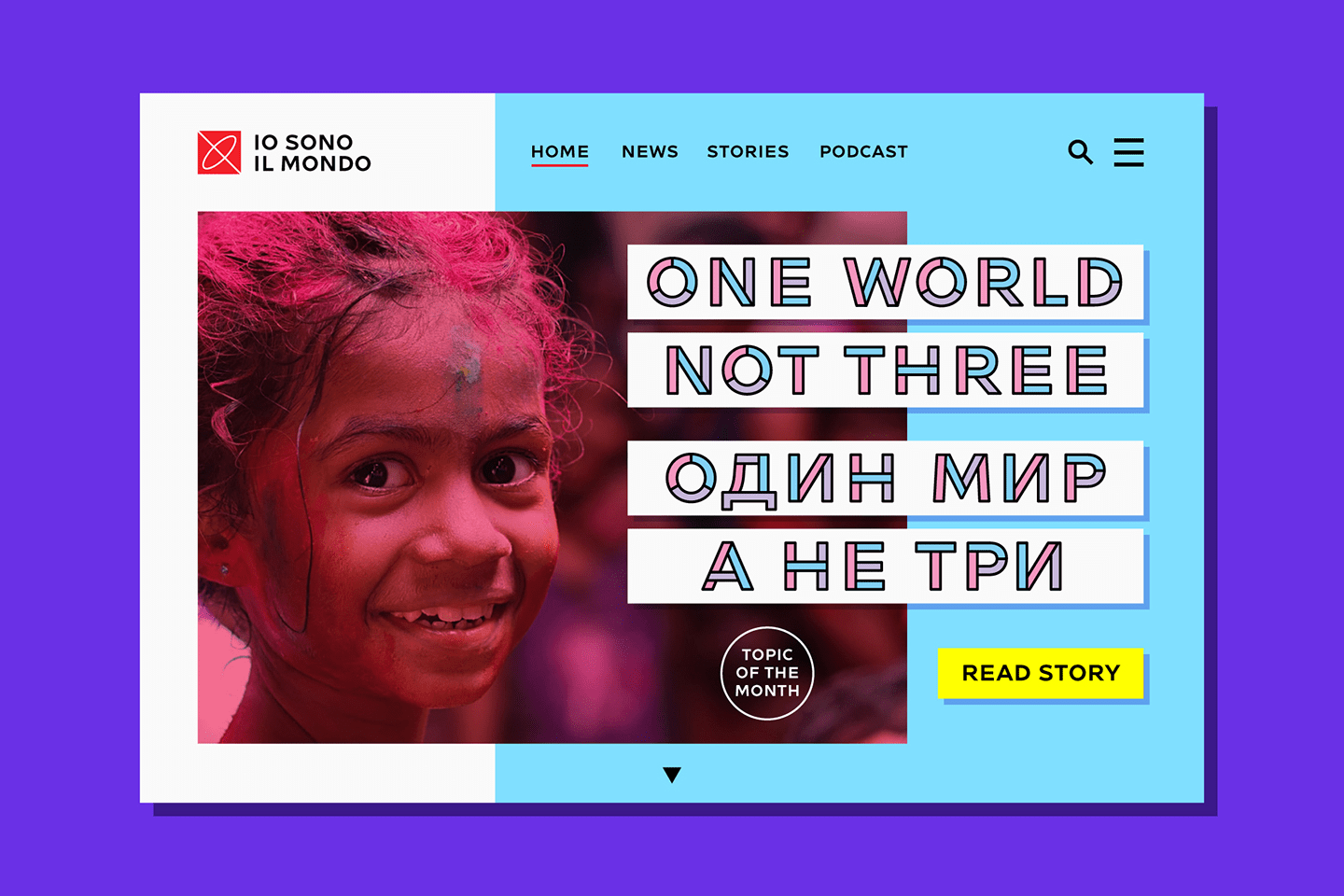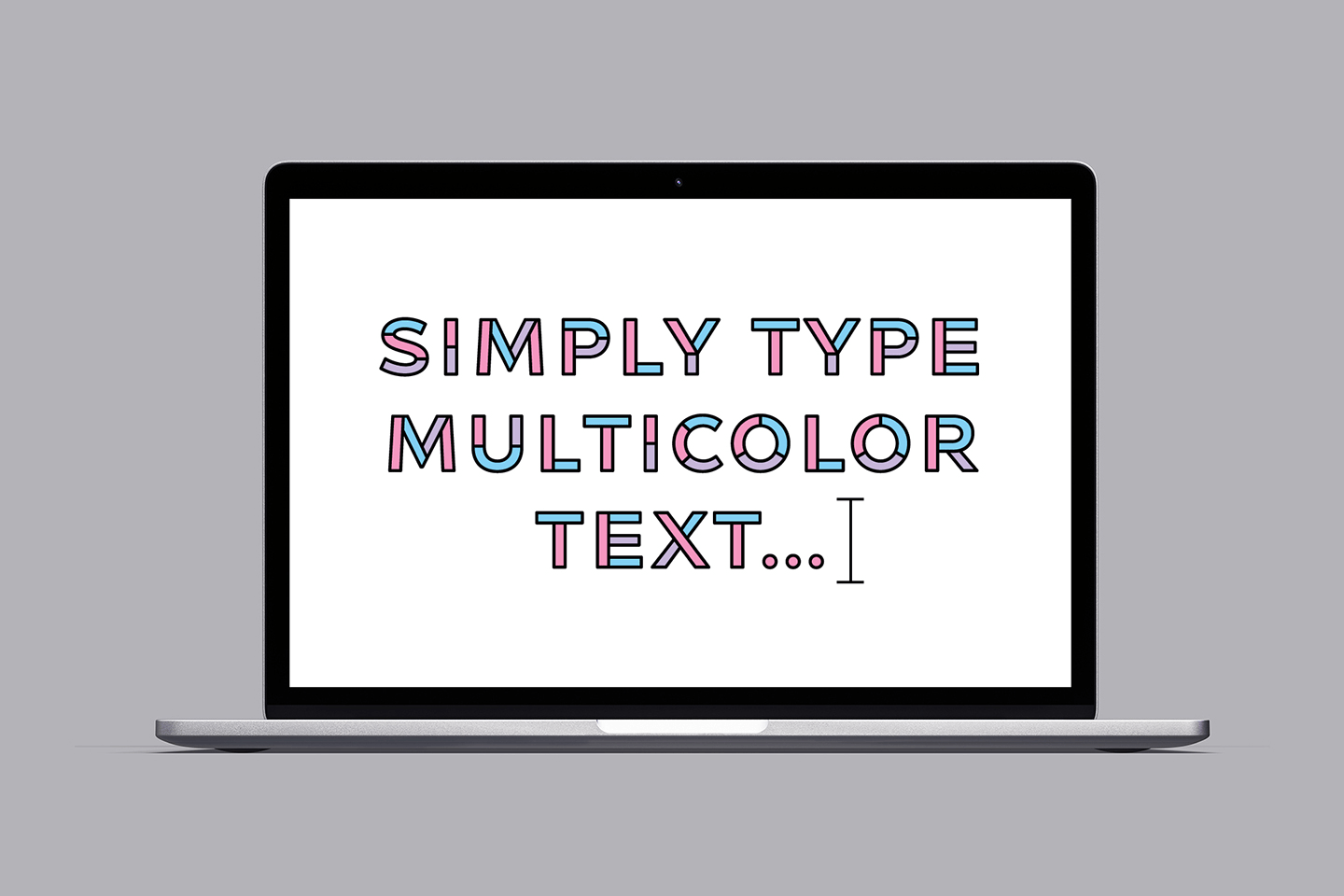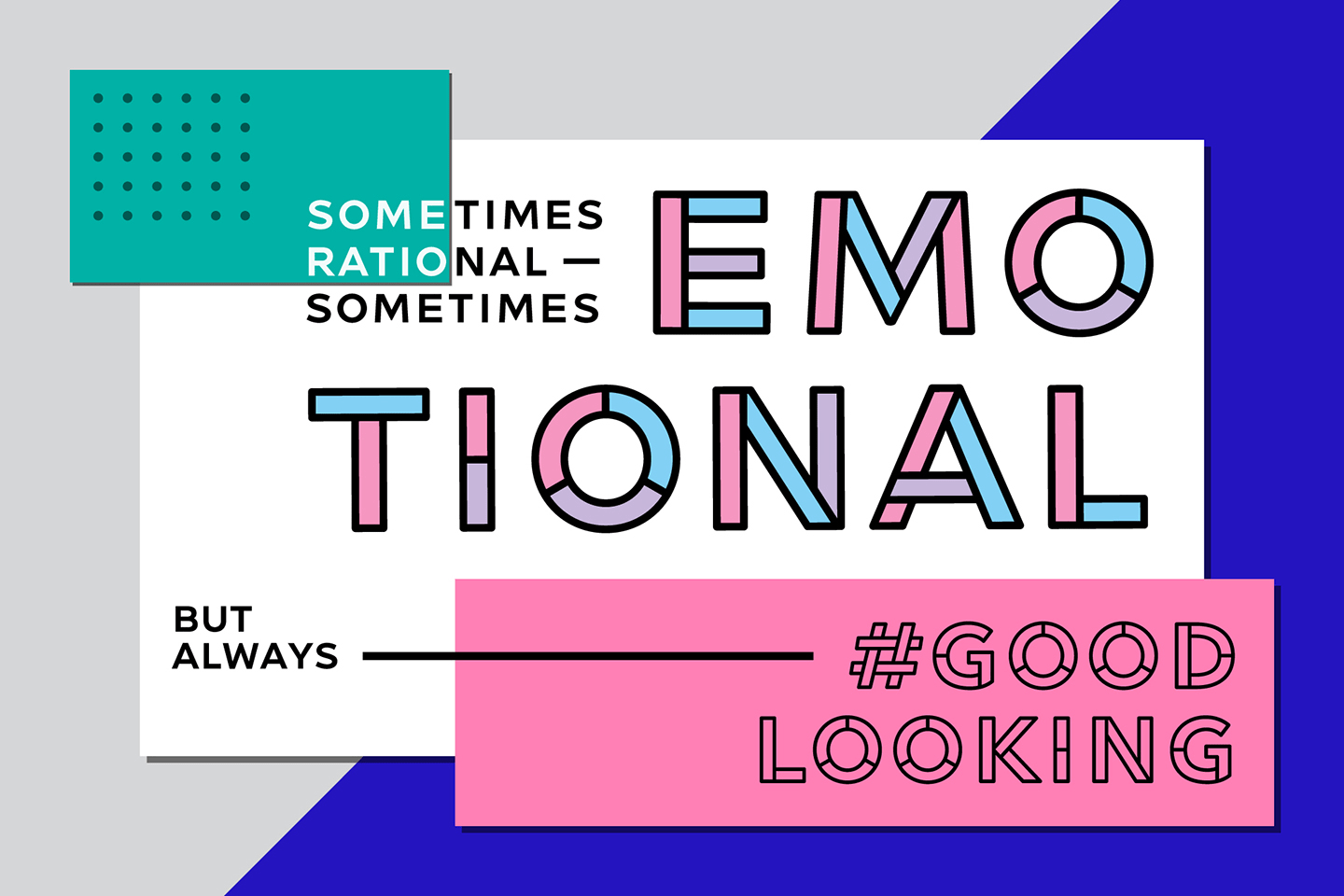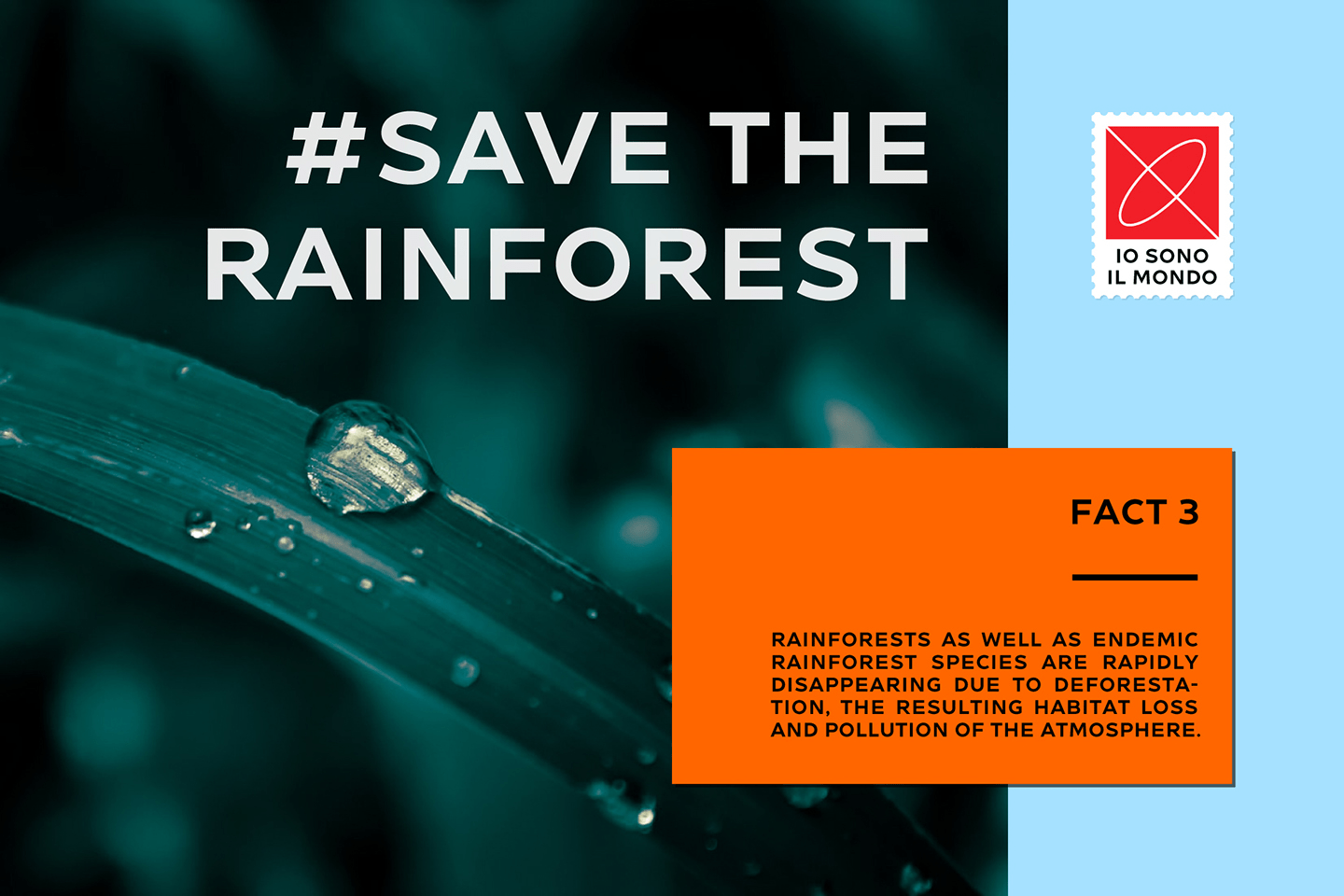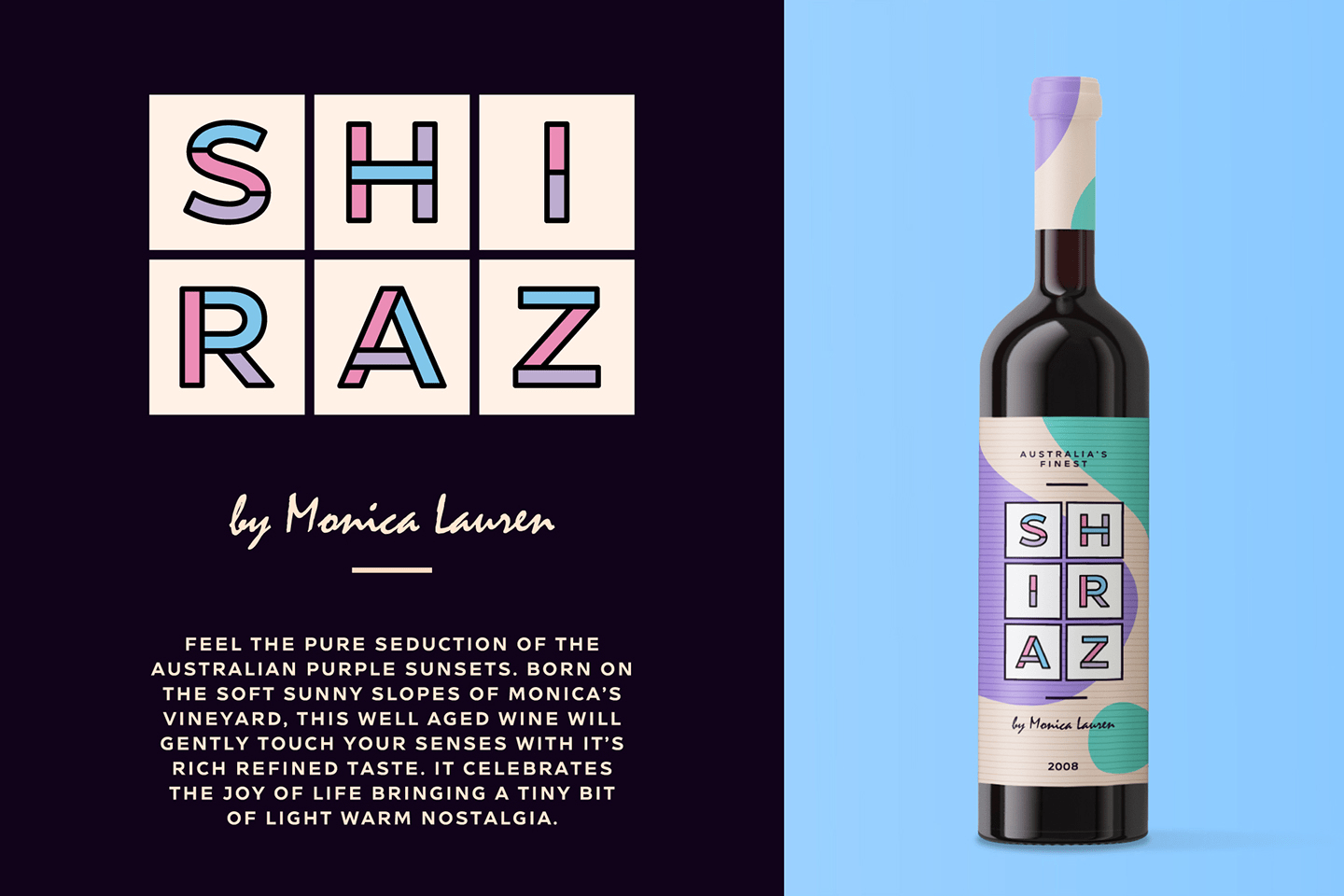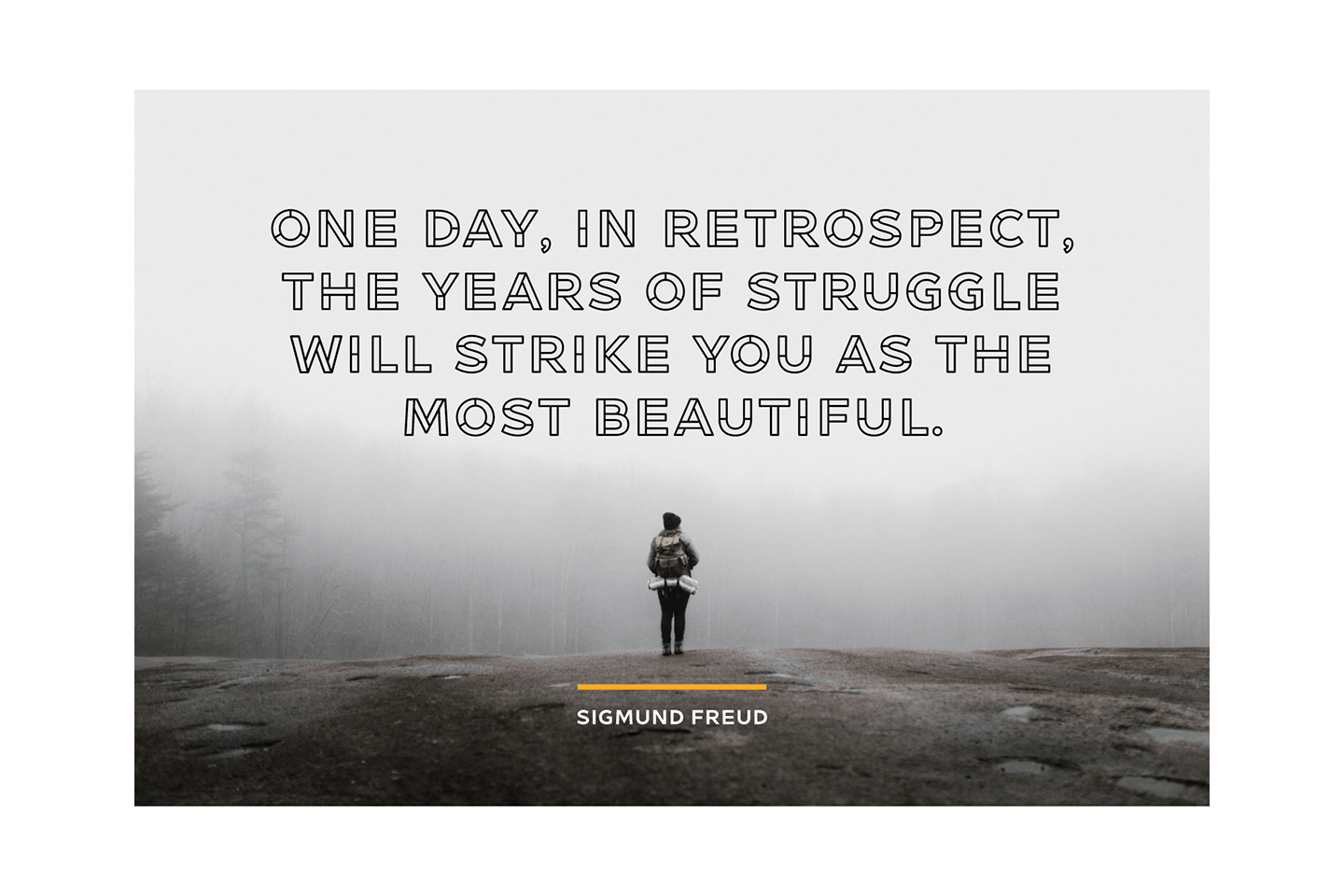
Naslof
About Naslof
NASLOF is a beautiful vibrant font family consisting of three styles. It's an all-caps font supporting Latin and Cyrillic. The font is intended for display purposes and is perfect to instantly draw attention to the messages you want to be seen and…